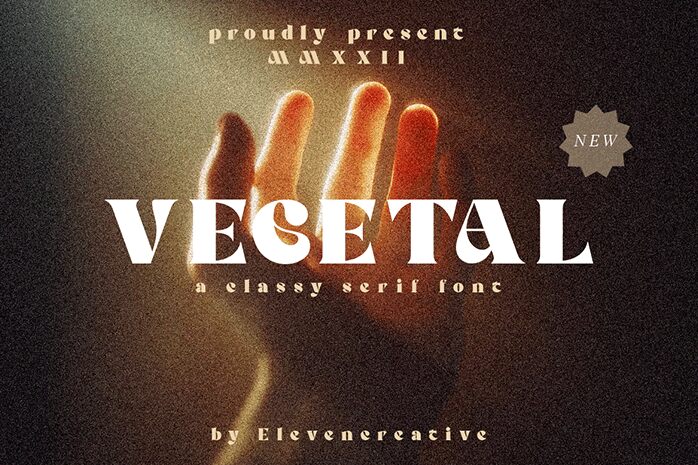
Vegetal, a creation by Typegoals Labs, is a striking display font that exudes a retro charm with its classy serif style. With an extra-bold weight and semi-expanded width, it demands attention and adds a touch of sophistication to any project.
Ideal for vintage-inspired logos, elegant packaging designs, or eye-catching headlines, Vegetal brings forth a sense of nostalgia while remaining effortlessly modern. Its versatility allows it to seamlessly enhance diverse projects such as restaurant menus, fashion magazines, or even album covers.
Elevate your designs with the timeless appeal of Vegetal.